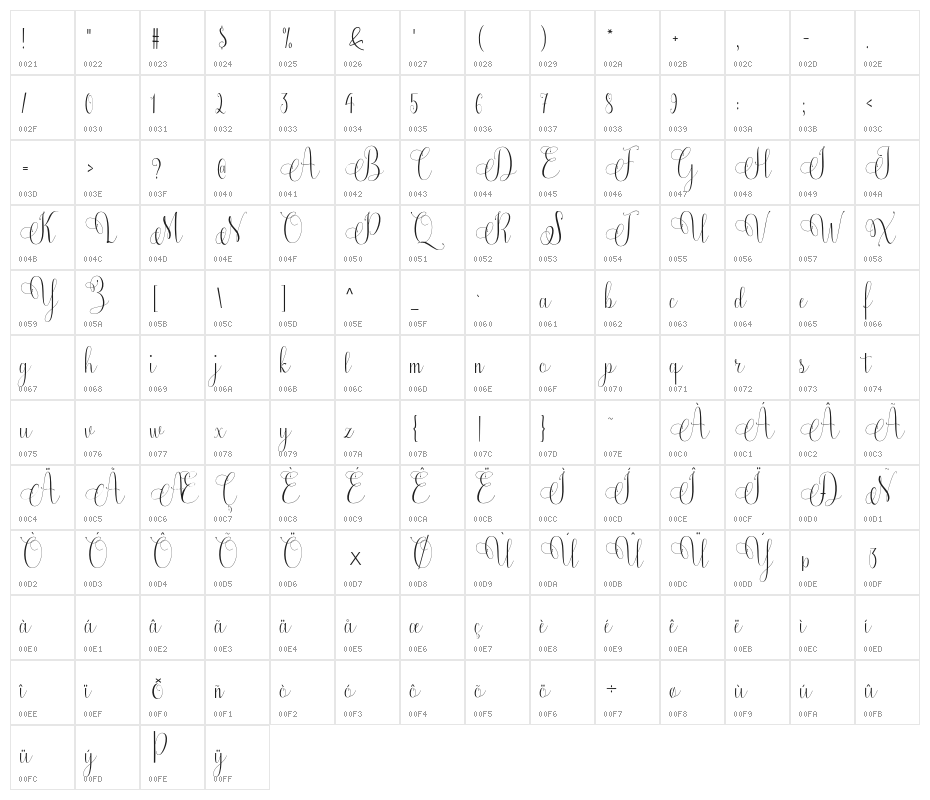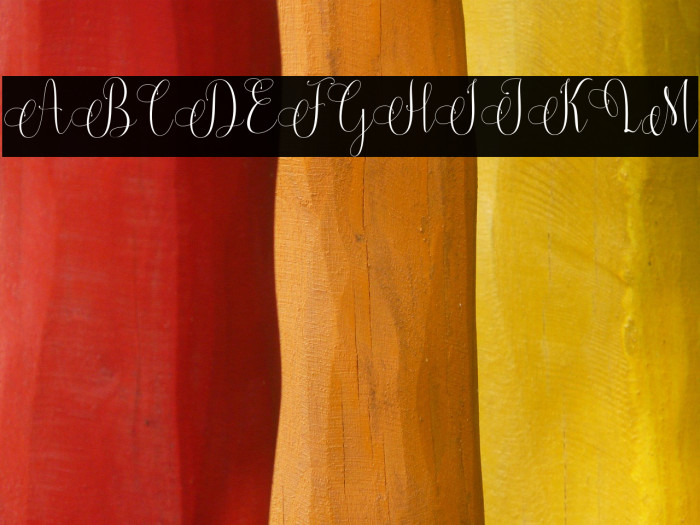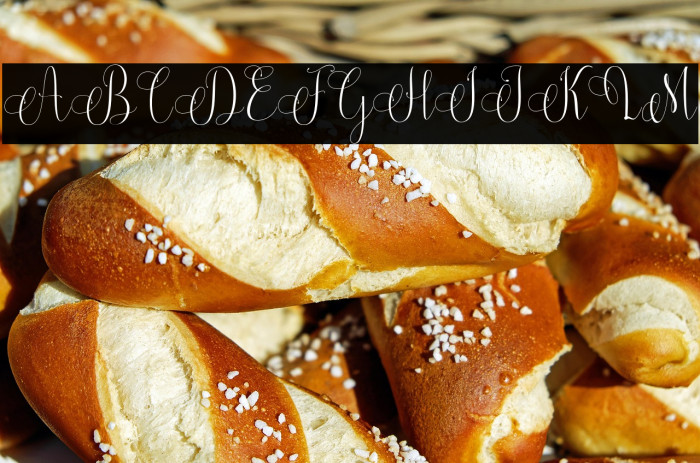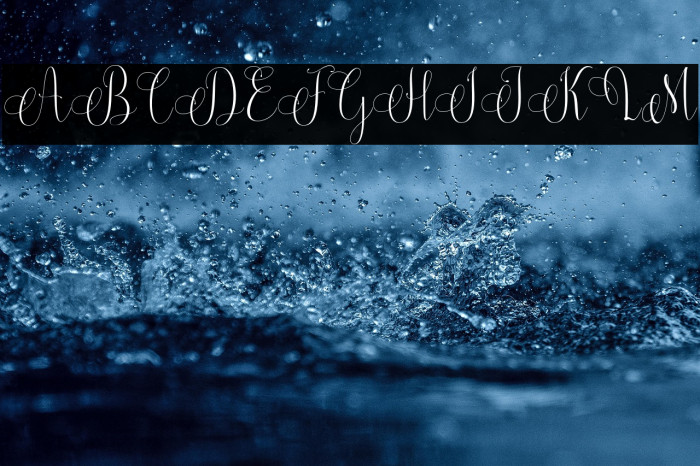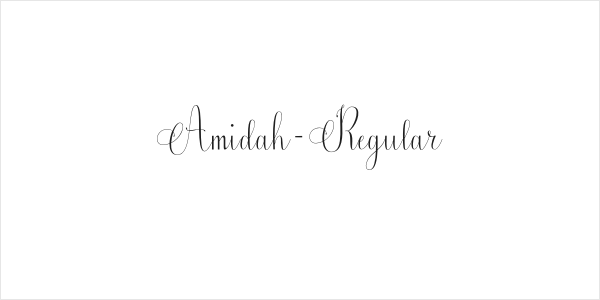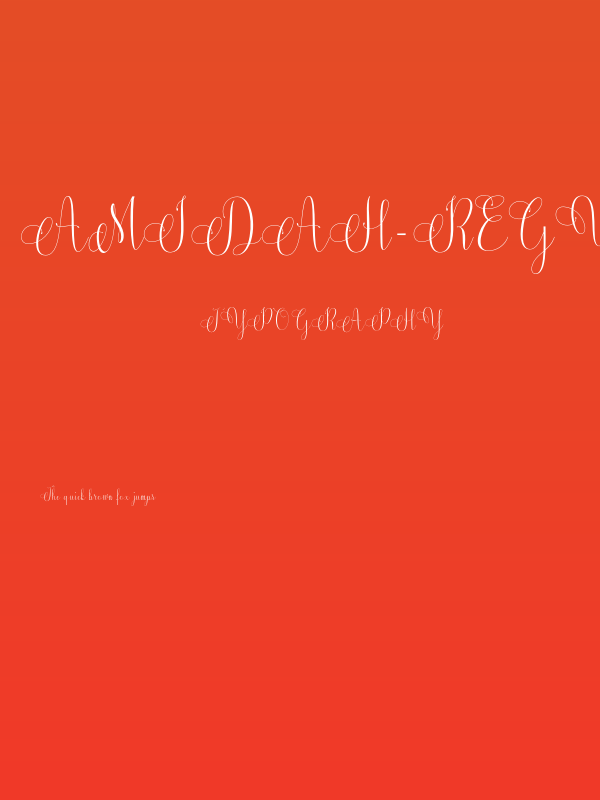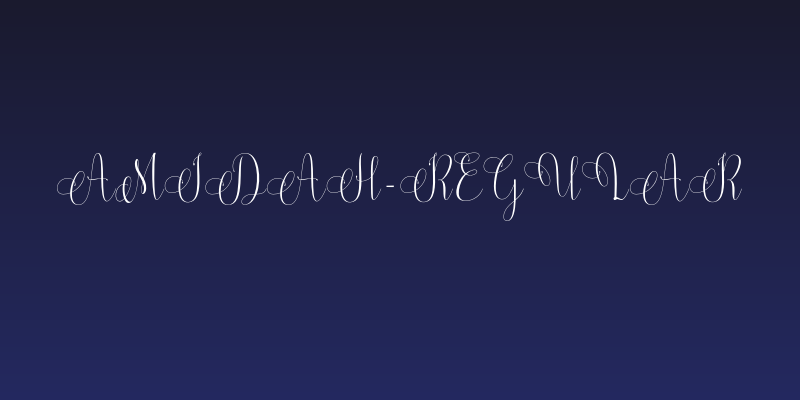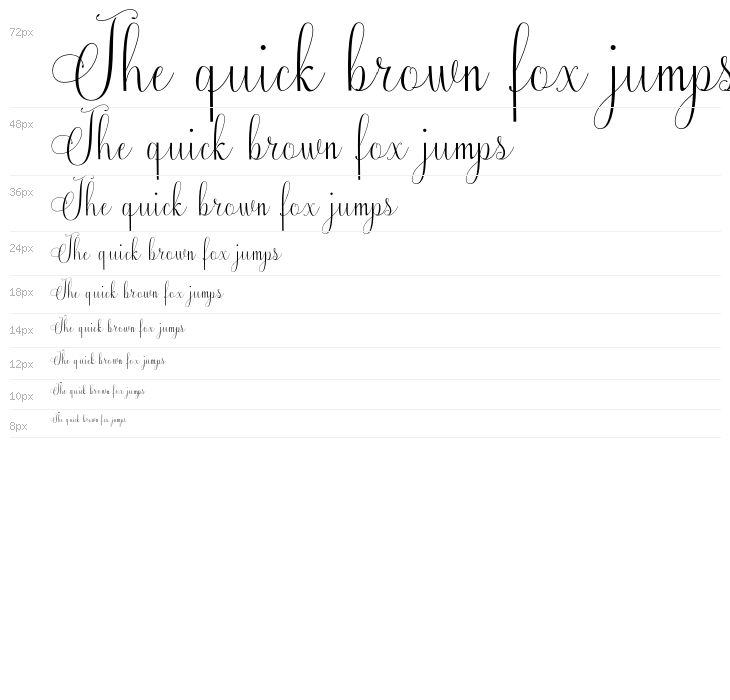
Amidah-Regular Font
Amidah-Regular Description
This font features an elegant and flowing script style, characterized by its intricate loops and swashes that give it a sophisticated and artistic appearance. The uppercase letters are particularly ornate, with elaborate flourishes that extend beyond the baseline, adding a touch of grandeur. The lowercase letters maintain a more restrained elegance, with smooth curves and a consistent stroke width that enhances readability. The numerals are designed with a similar flair, ensuring they complement the overall aesthetic. Special characters are thoughtfully integrated, maintaining the font's cohesive style. This font is perfect for projects that require a touch of elegance and creativity.
| Overall Style | Elegant, Artistic |
| Proposed Projects | Wedding invitations, luxury branding, artistic posters, and elegant stationery. |